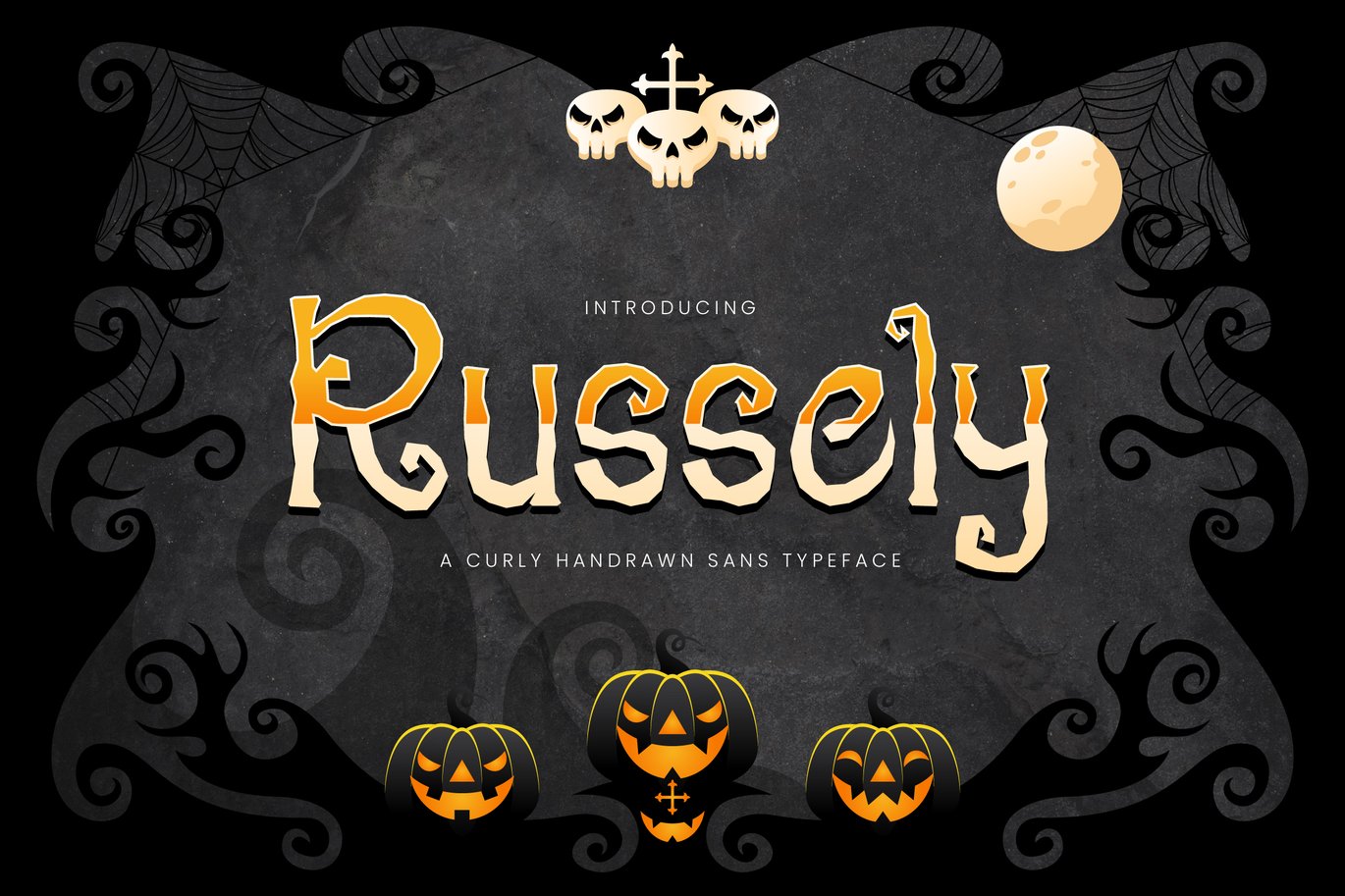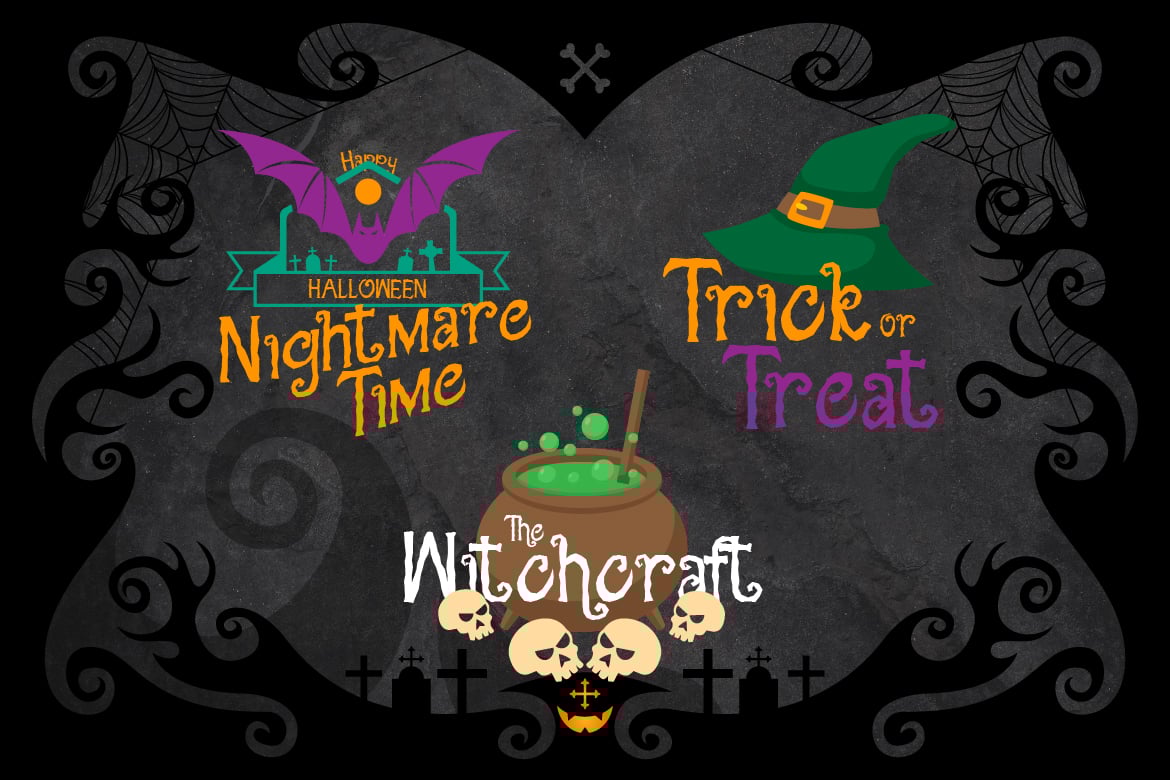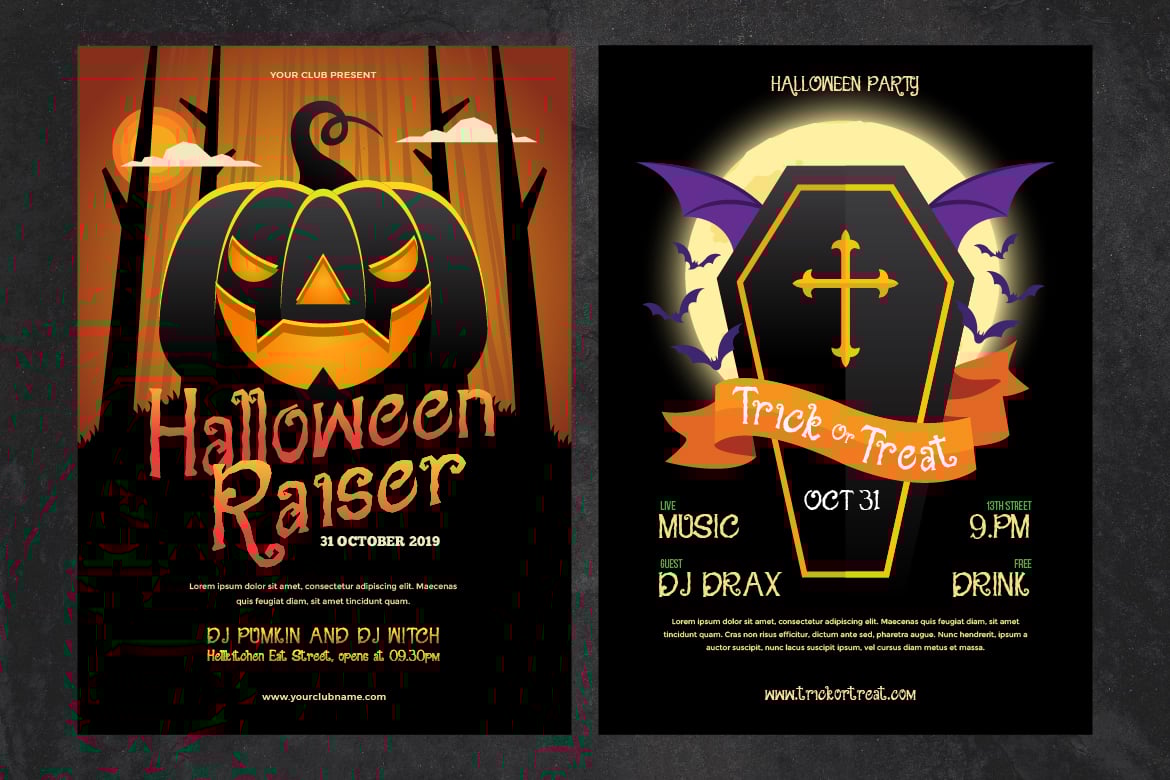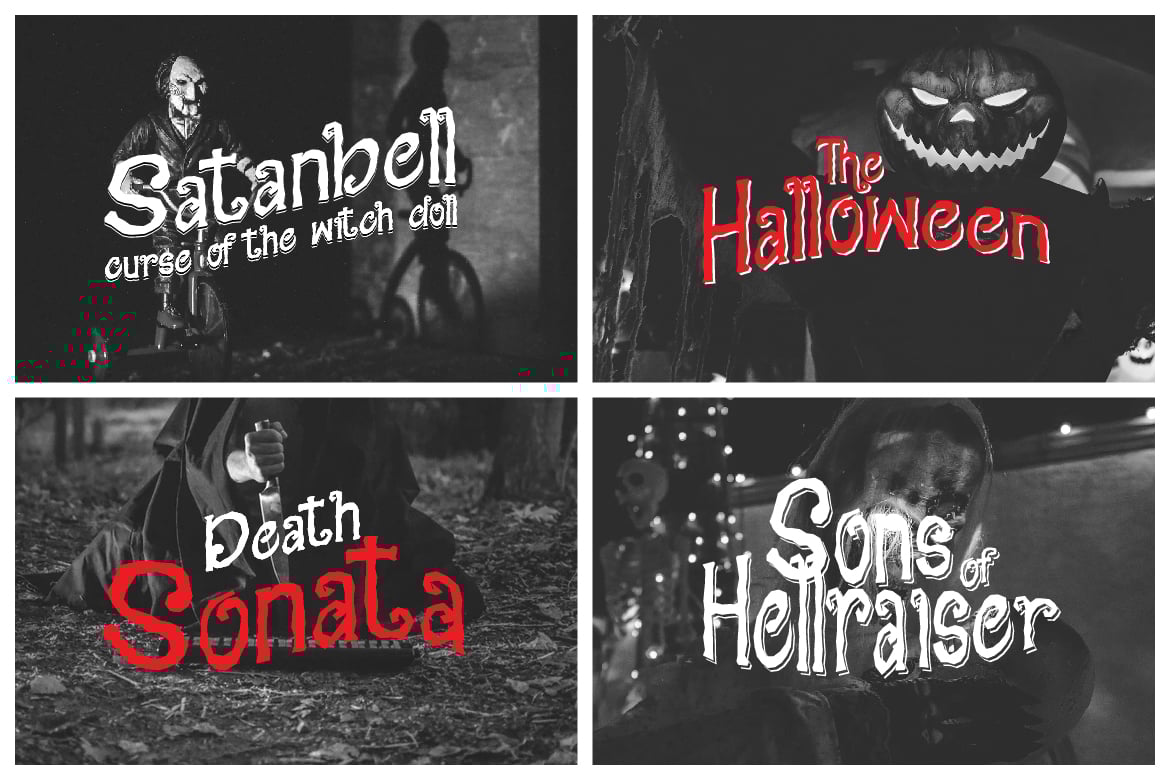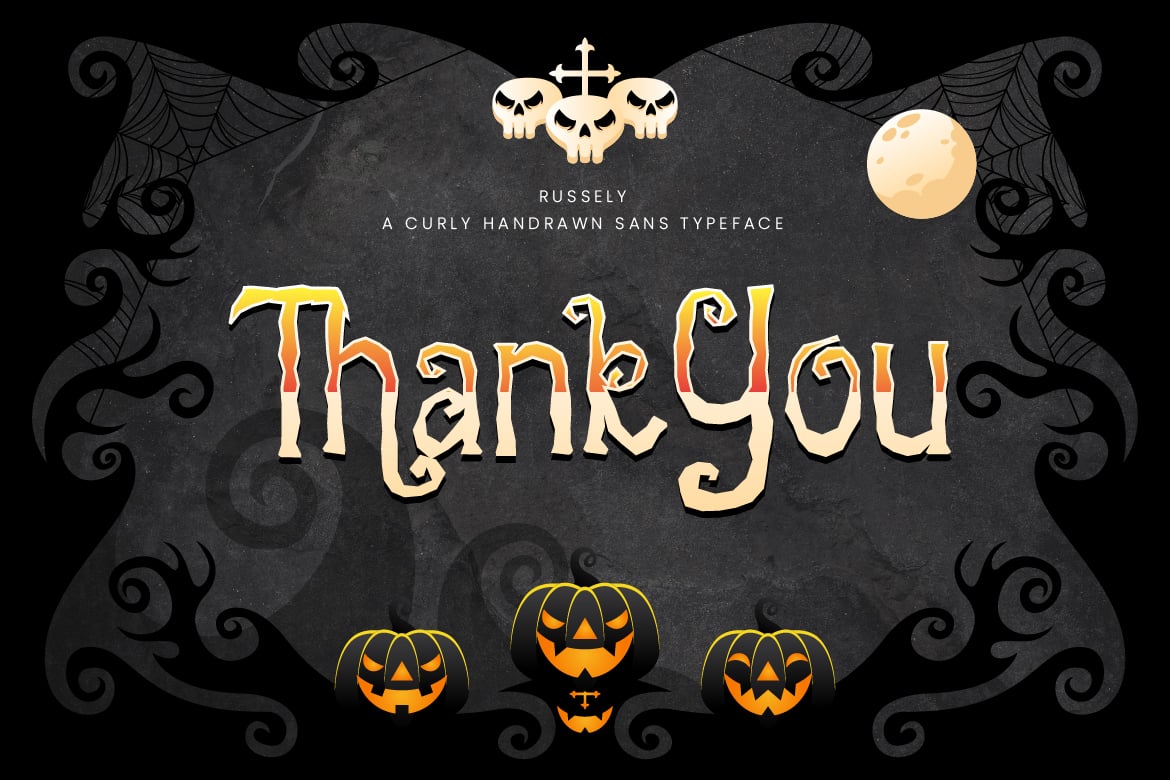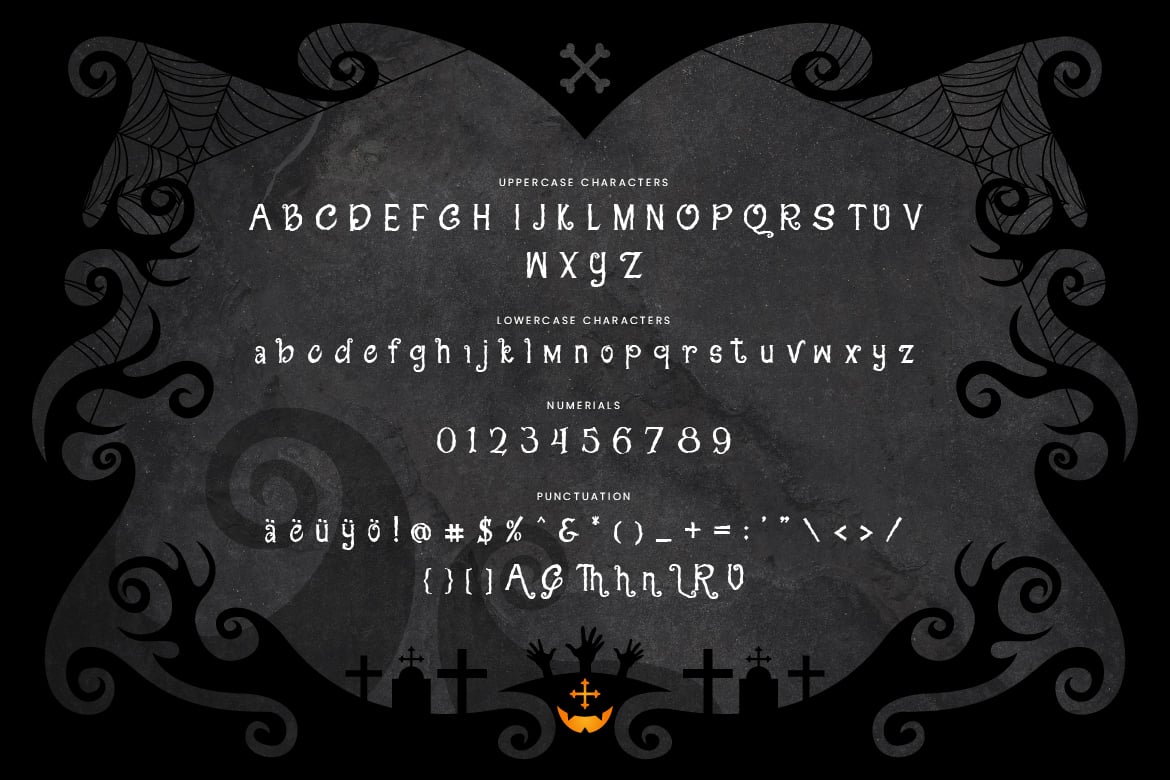
Russely – Curly Handrawn Halloween Font
Are you looking for a cute handrawn font for children and halloween event? We can help! Try to download our Russely Curly Handrawn font. The font is suitable to use for casual purpose especially children related occasion and halloween π